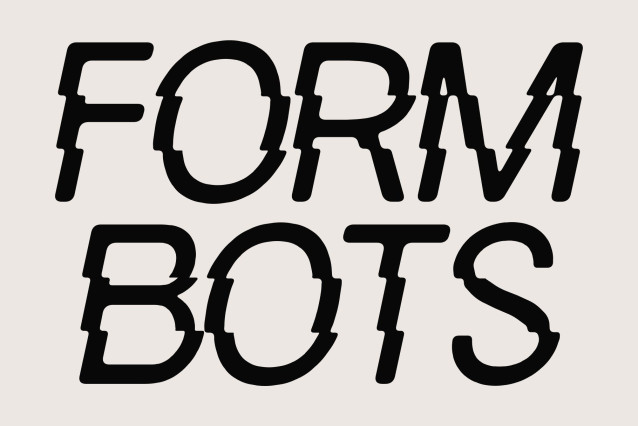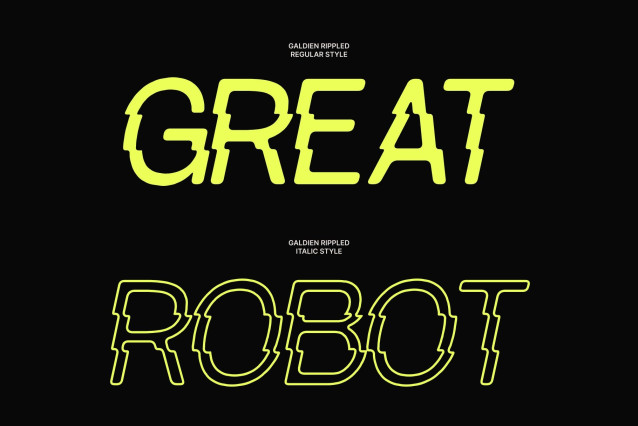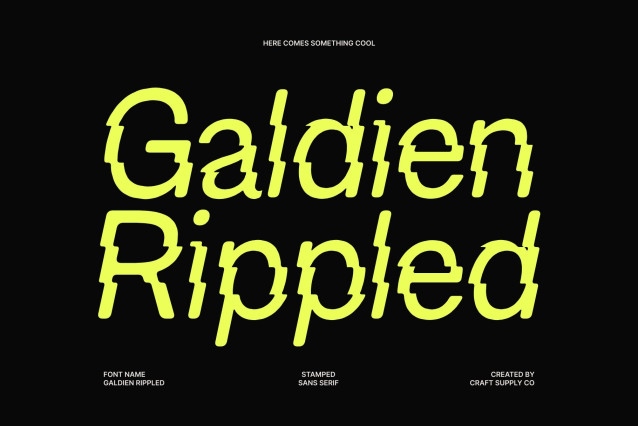
Galdien Rippled – Modern Sans Serif Font with Fluid Contemporary Elegance
A Contemporary Typeface with Refined Simplicity
This is a modern sans serif font that embodies contemporary design through its clean structure and elegant simplicity. It is crafted to deliver a balanced visual tone that feels fresh, minimal, and highly relevant to today’s design landscape. The font combines modern proportions with a refined aesthetic, creating a typeface that feels effortlessly sophisticated while maintaining strong visual clarity. Its understated presence allows it to support content without overwhelming the overall composition.
Clean and Versatile Design for Flexible Use
With its uncluttered letterforms and precise construction, this font offers exceptional versatility across a wide range of design applications. Its clean lines ensure smooth readability while adapting seamlessly to both bold and subtle visual environments. Whether used in editorial layouts, branding systems, packaging, or digital interfaces, the font maintains a consistent and polished appearance. This adaptability makes it a reliable choice for designers seeking a minimalist yet expressive type solution.